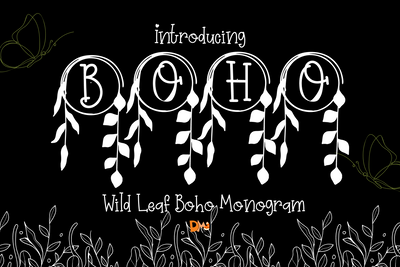
Wild Leaf Boho Monogram
Wild Leaf Boho Monogram – Hand-Drawn Serif Monogram Font with Bohemian Leaf Accents
Wild Leaf Boho Monogram is a free-spirited monogram font featuring handcrafted serif letterforms entwined with organic, wild leaf illustrations. Perfect for bohemian designs, personalized gifts, wedding stationery, and Cricut crafts, this font brings earthy charm and artisanal elegance to every monogram.
Boho Leaf Accents: Each letter is detailed with hand-drawn wild leaves for an organic, artistic look.
Rustic Serif Base: Timeless serif structure balanced with natural, imperfect charm.
Monogram Ready: Designed for creating beautiful initials, logos, and custom designs.
Ideal For: Boho wedding decor, personalized branding, Cricut crafts, gift tags, nature-themed packaging, and botanical logos.